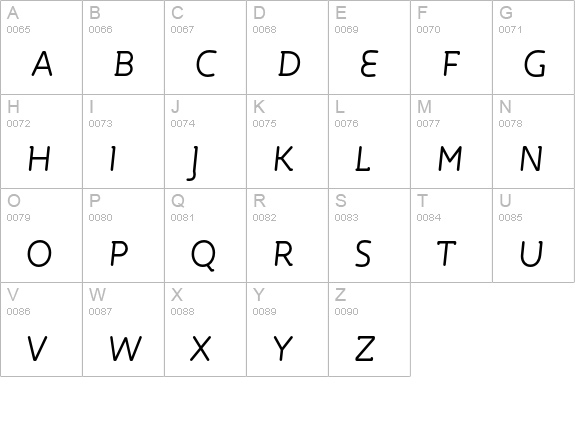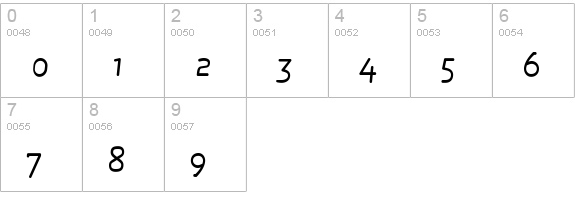
Roice-RegularItalic is a stylish and elegant font that exudes sophistication and modernity. Its slanted and italicized design adds a touch of flair and uniqueness to any text or project. The curvy and flowing letterforms of Roice-RegularItalic make it perfect for adding a touch of creativity to your designs. This versatile font is ideal for various design projects, including logos, branding, invitations, posters, and more. Whether you're looking to create a chic and contemporary look or a more playful and artistic vibe, Roice-RegularItalic has got you covered. The best part is that Roice-RegularItalic is completely free to download at FontsMarket.com. This means you can easily access and use this stunning font for all your personal and commercial projects without any cost. Don't miss out on the opportunity to elevate your designs with the beauty and charm of Roice-RegularItalic. Download it today and let your creativity shine!